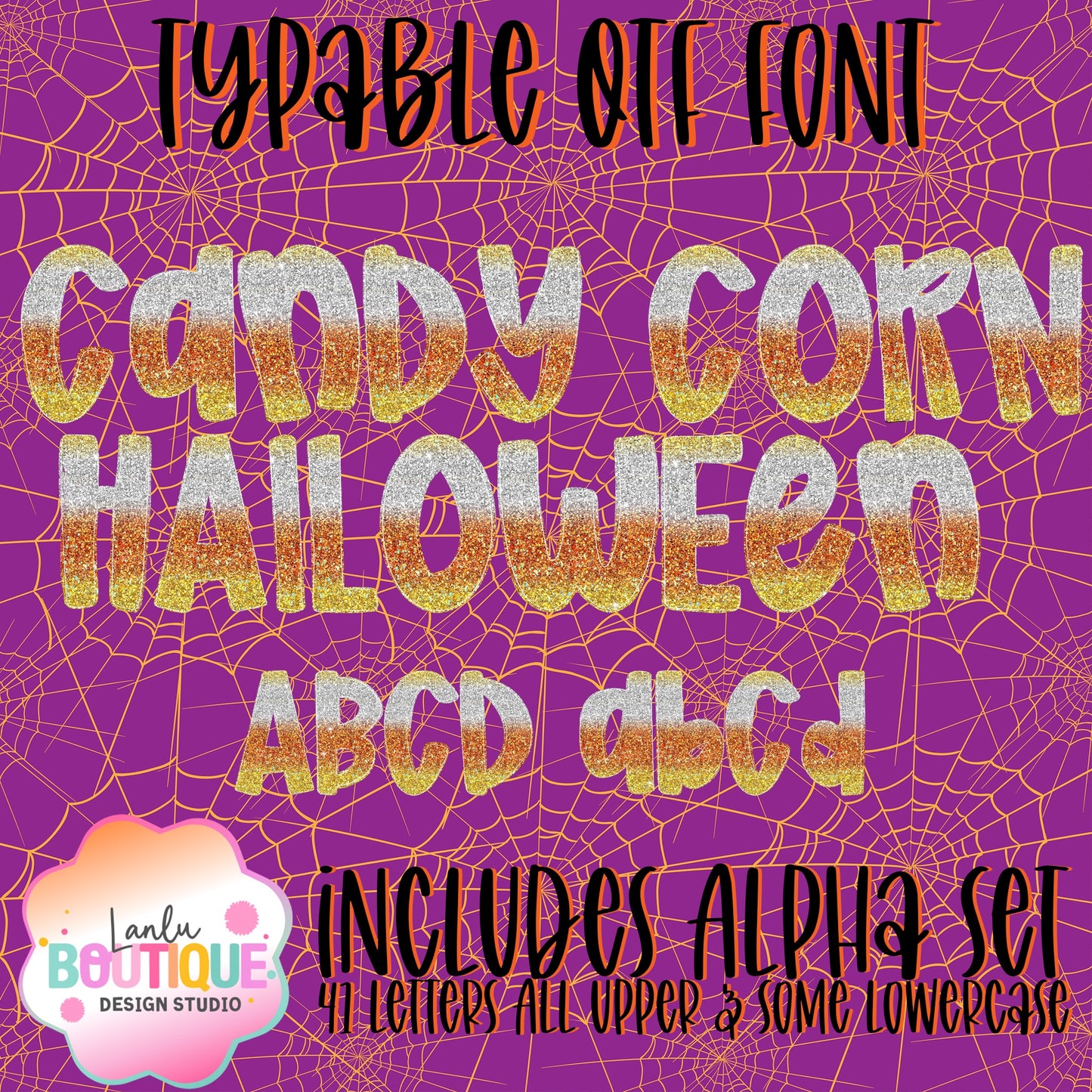
Candy Corn Halloween Glitter OTF Typable Hand drawn Font
Elevate your Halloween designs with the Candy Corn Halloween Glitter OTF font. This typable, hand-drawn style features subtle glitter accents that add a refined festive touch. Perfect for invitations, branding, and seasonal projects, it combines charm with elegance to enhance your creative work.